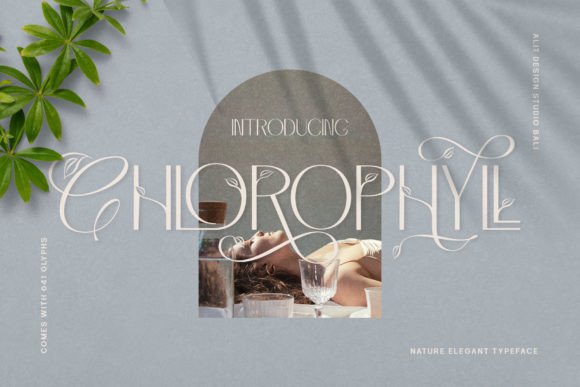
Unleash the beauty of nature in your design endeavors with “Chlorophyll�, a captivating sans serif font that intertwines modern simplicity with the organic charm of leaf illustrations. Experience the harmony of nature as each letter and symbol subtly incorporates the elegance of leaves, creating a seamless connection to the great outdoors.
With its clean and versatile style, “Chlorophyll� effortlessly adapts to various applications, from branding and packaging to invitations and menus. Its balanced letterforms ensure legibility and impact, while the leafy delight of its intricate illustrations adds a touch of eco-friendly charm.
Embrace the simplicity of “Chlorophyll� and let your content shine, adorned with the understated elegance of nature. Whether you seek to create a logo that embodies sustainability or design materials for a garden wedding, this font effortlessly evokes a sense of elegance and connection to the earth.
The extensive character set of “Chlorophyll� ensures compatibility with multiple languages and enables you to express your message with clarity and grace. Its digital and print readiness allows for seamless integration into any project, ensuring crisp rendering in any size or medium.
Welcome the allure of “Chlorophyll� into your design world and elevate your creations with the beauty of nature. This font is a testament to the idea that simplicity can bring depth and elegance, capturing the essence of nature's charm in a modern and versatile package.